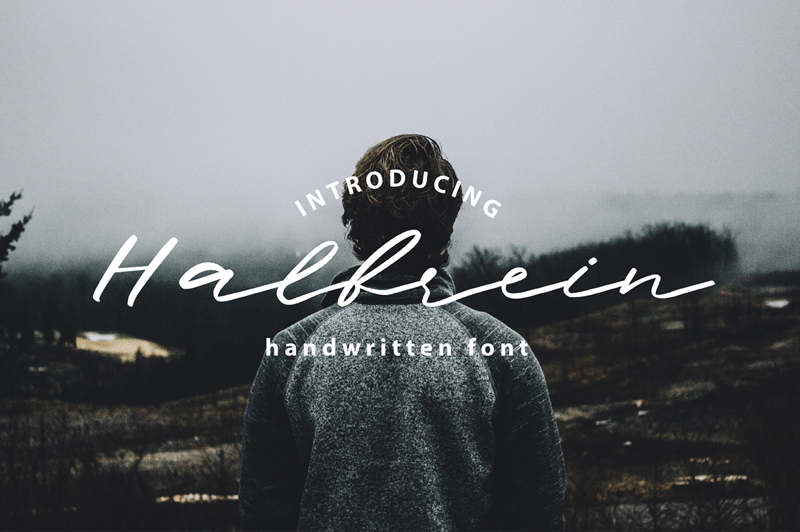
Preview and download Halbrein Font. Created by Mr. Typeman in Script Handwritten styles with Demo license.
This is the demo version of the font which was made for you to try out it in your projects. This means you can NOT use it for personal or commercial aims. ---------------------------------------------------- DOWNLOAD FULL VESION FOR PERSONAL AND COMMERCIAL USE: https://crmrkt.com/XWE8P0 https://thehungryjpeg.com/product/98313-halbrein-handwritten-script/ ---------------------------------------------------- Meet my new font Halbrein – a romantic delicate script font with its poetic flow, wich simulates natural handwriting. Full version of Halbrein comes with uppercase, lowercase, standard punctuation and special letters for most of the European languages. ---------------------------------------------------- Contact me if you have any questions: mr.typeman@gmail.com ---------------------------------------------------- Enjoy! |